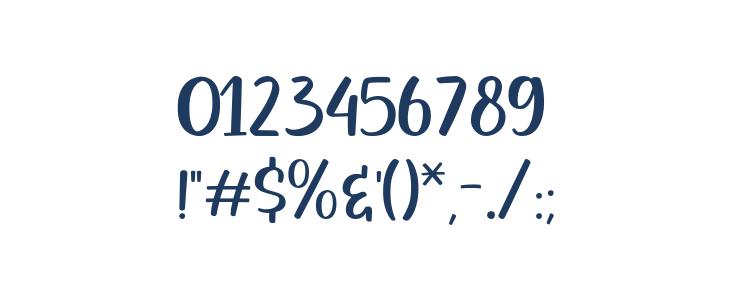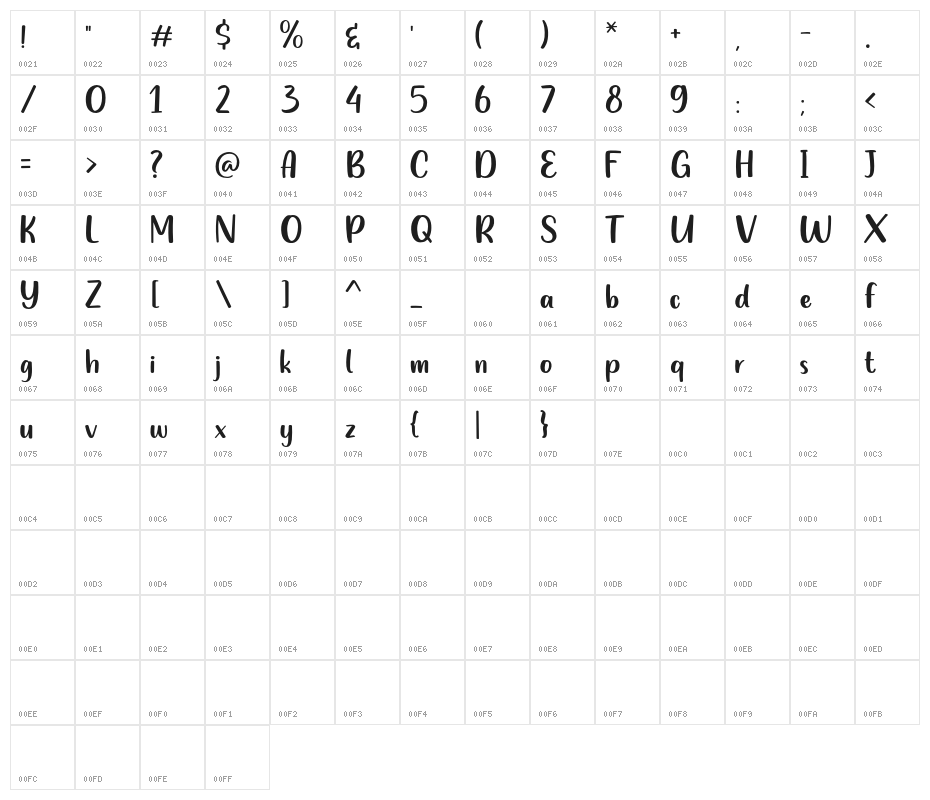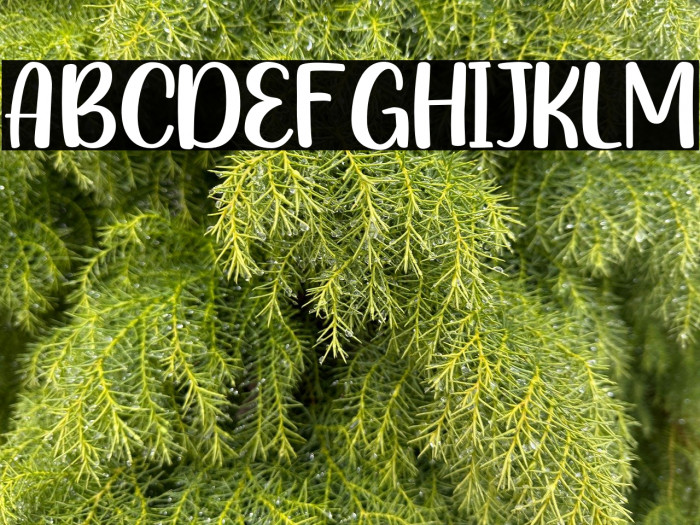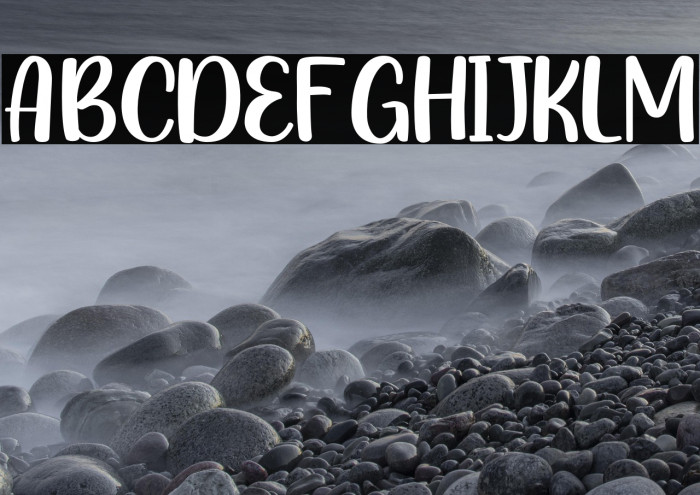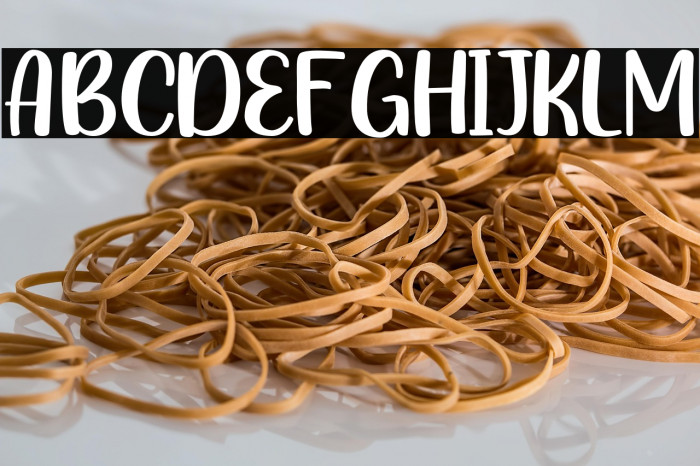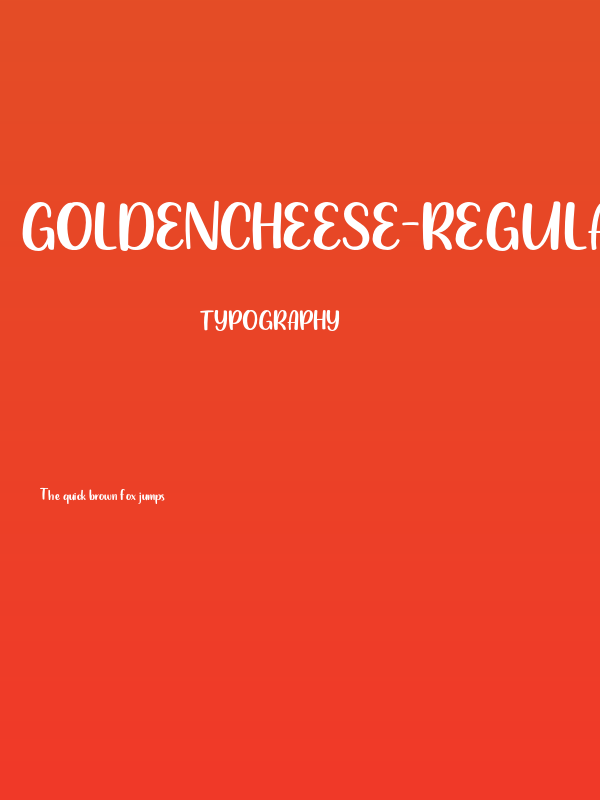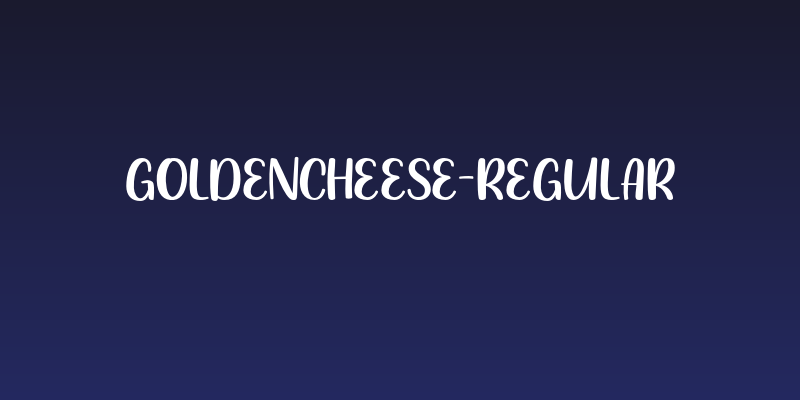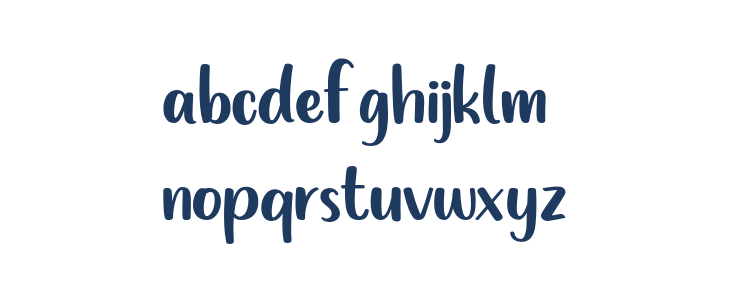
GoldenCheese-Regular Font
GoldenCheese-Regular Description
This font features a playful and casual handwritten style, characterized by its smooth curves and slightly uneven strokes that give it a friendly and approachable appearance. The uppercase letters are bold and rounded, while the lowercase letters maintain a consistent flow with a slightly whimsical touch. The numerals are clear and easy to read, matching the overall style of the alphabet. Special characters are well-integrated, maintaining the font's cohesive look. This font is versatile and can be used to add a personal and informal touch to various design projects.
| Overall Style | Casual and playful |
| Use Case | Headlines, Logos, Invitations |
| Proposed Projects | Ideal for greeting cards, invitations, personal branding, and social media graphics. |